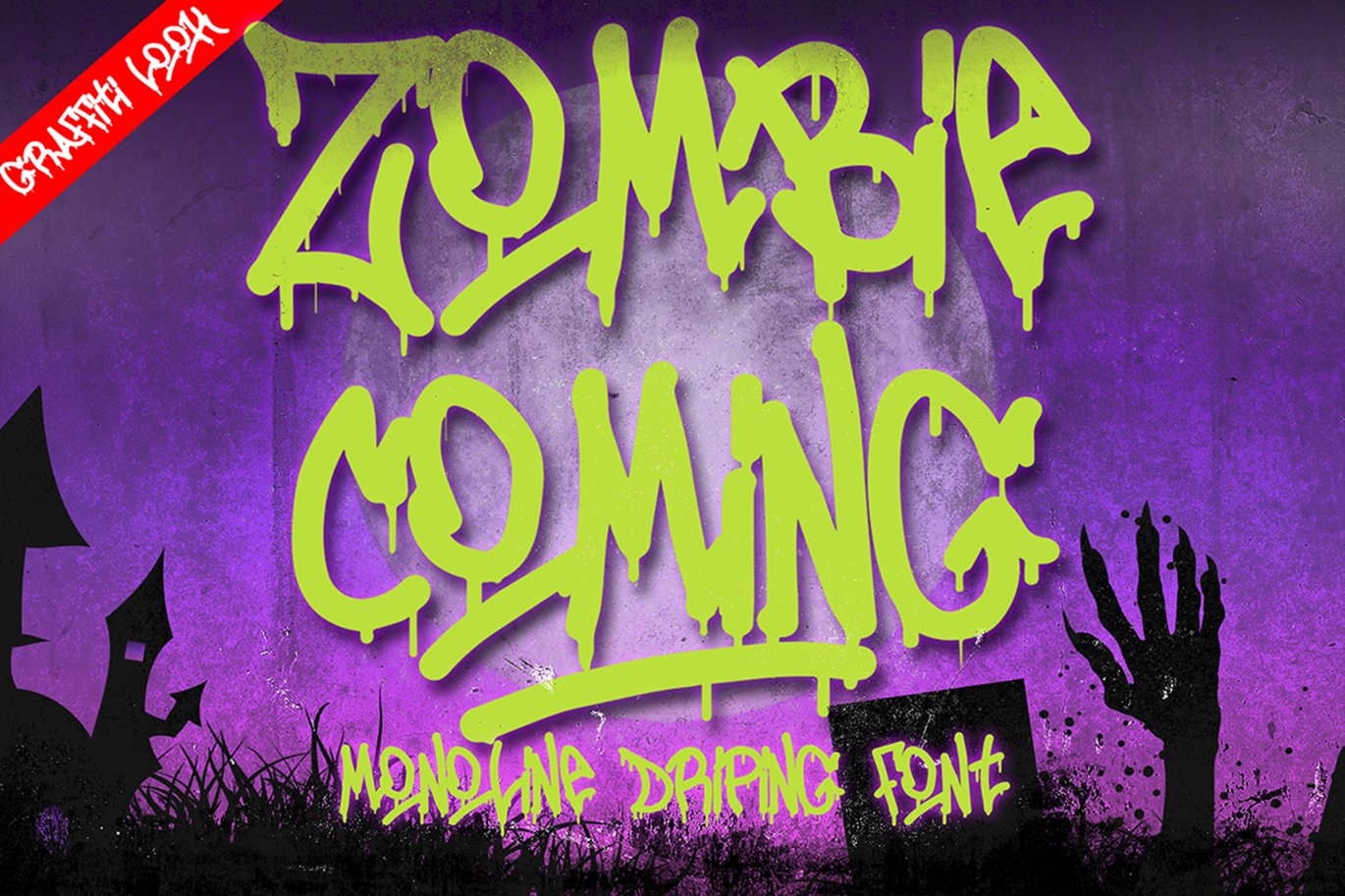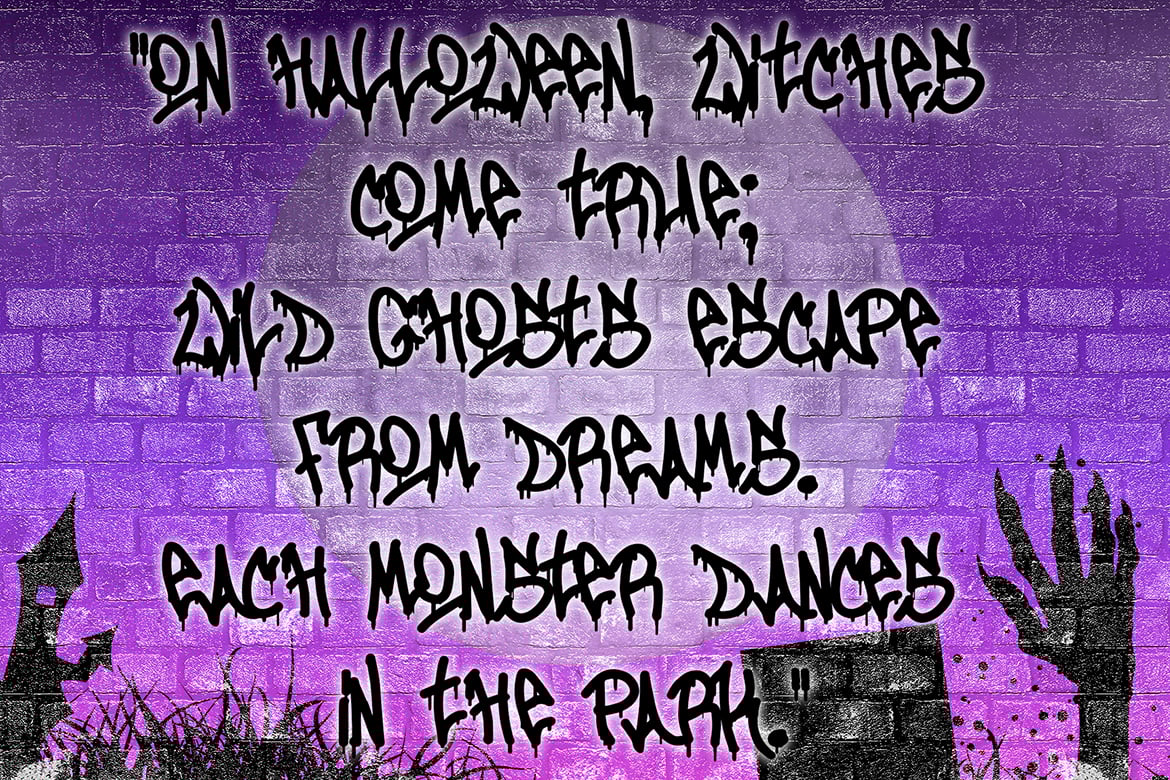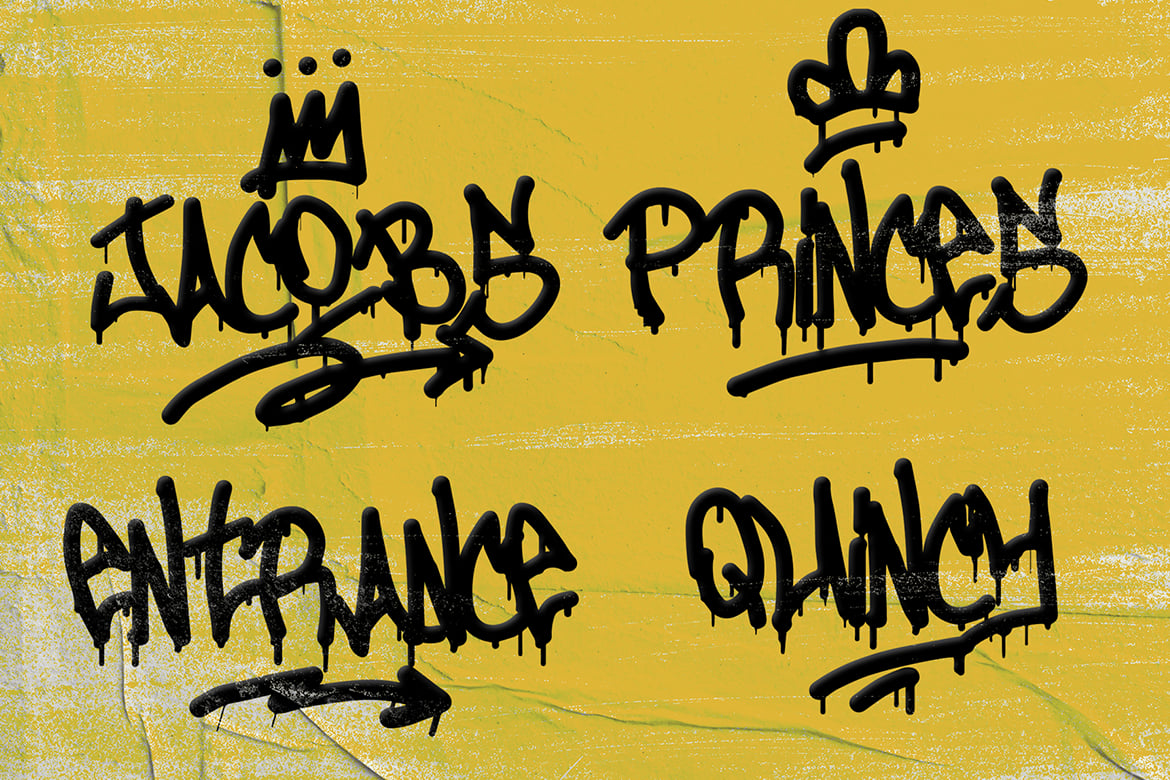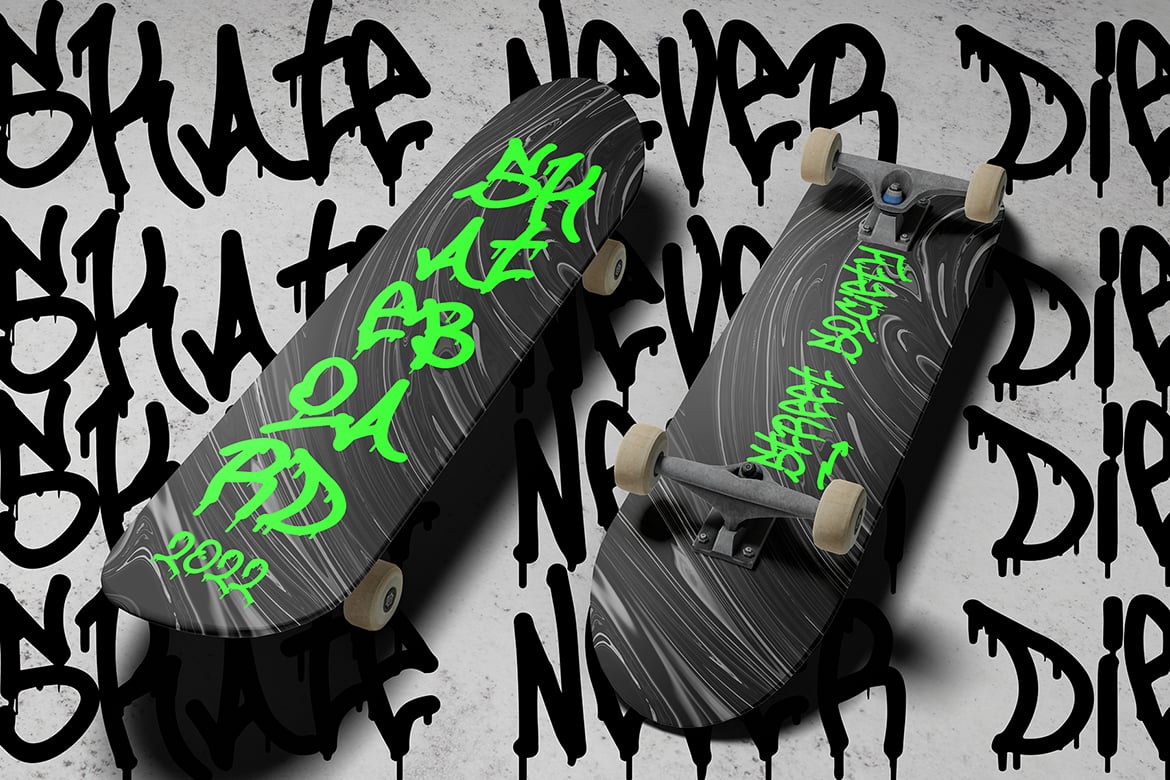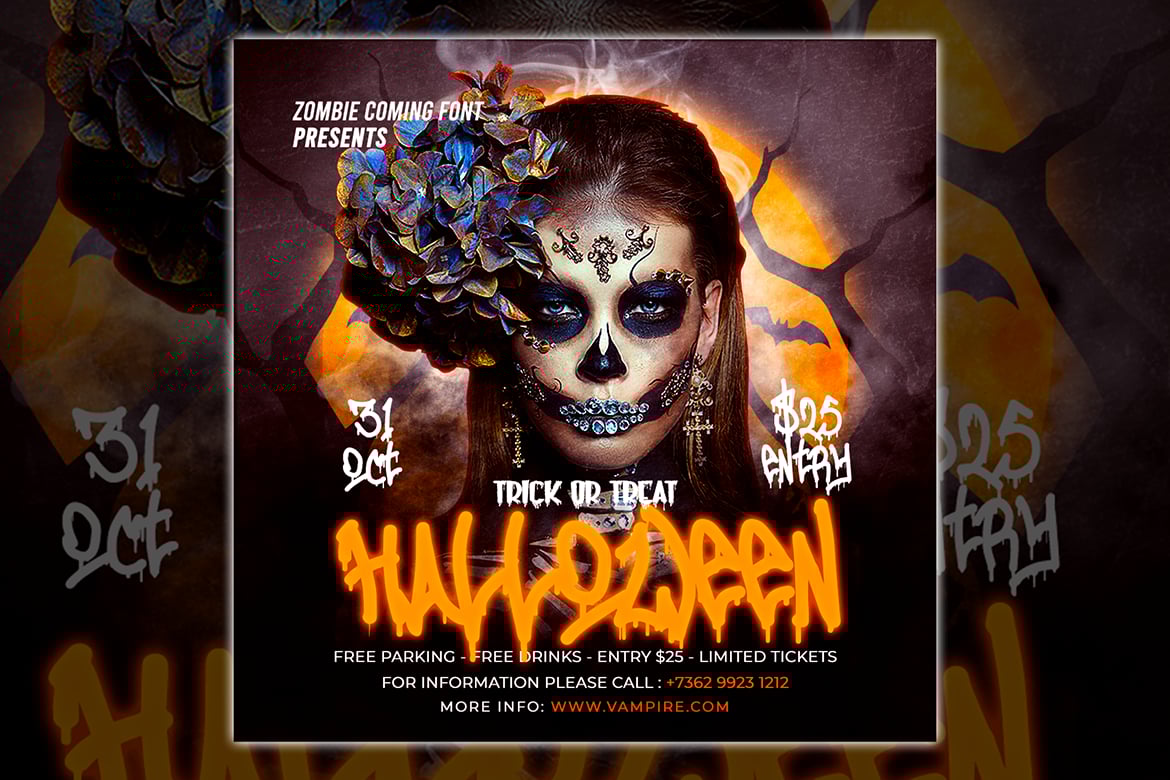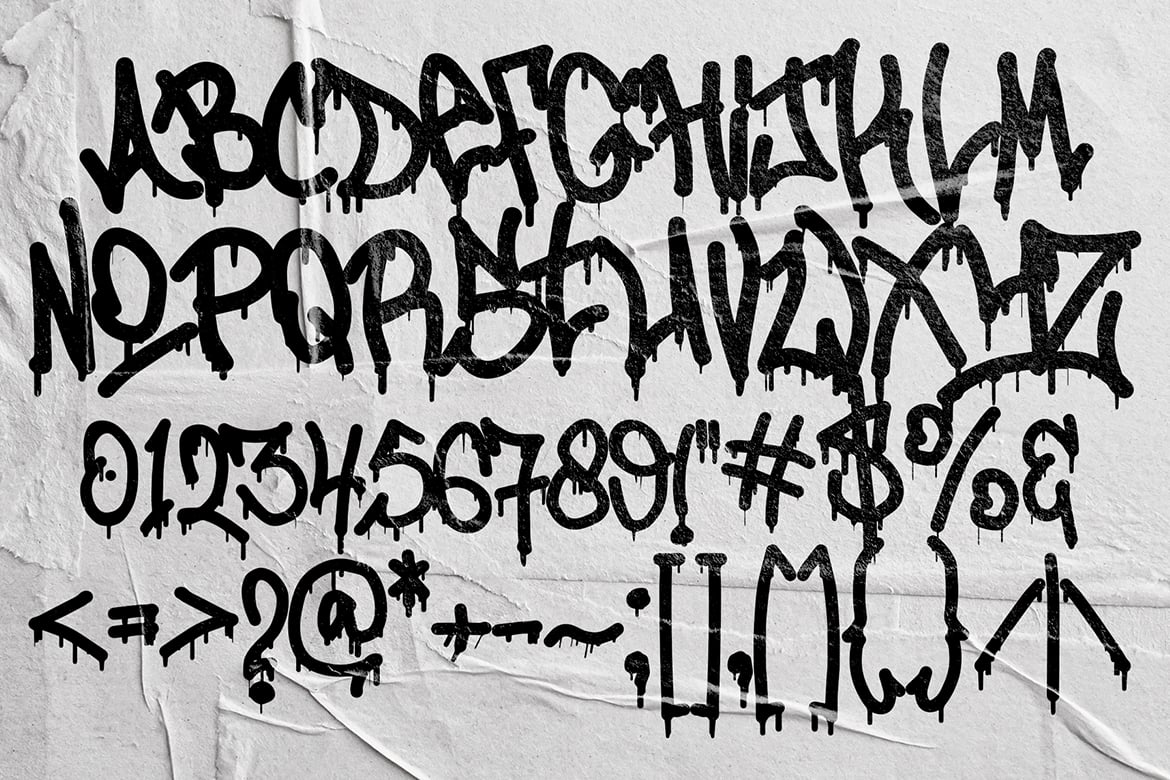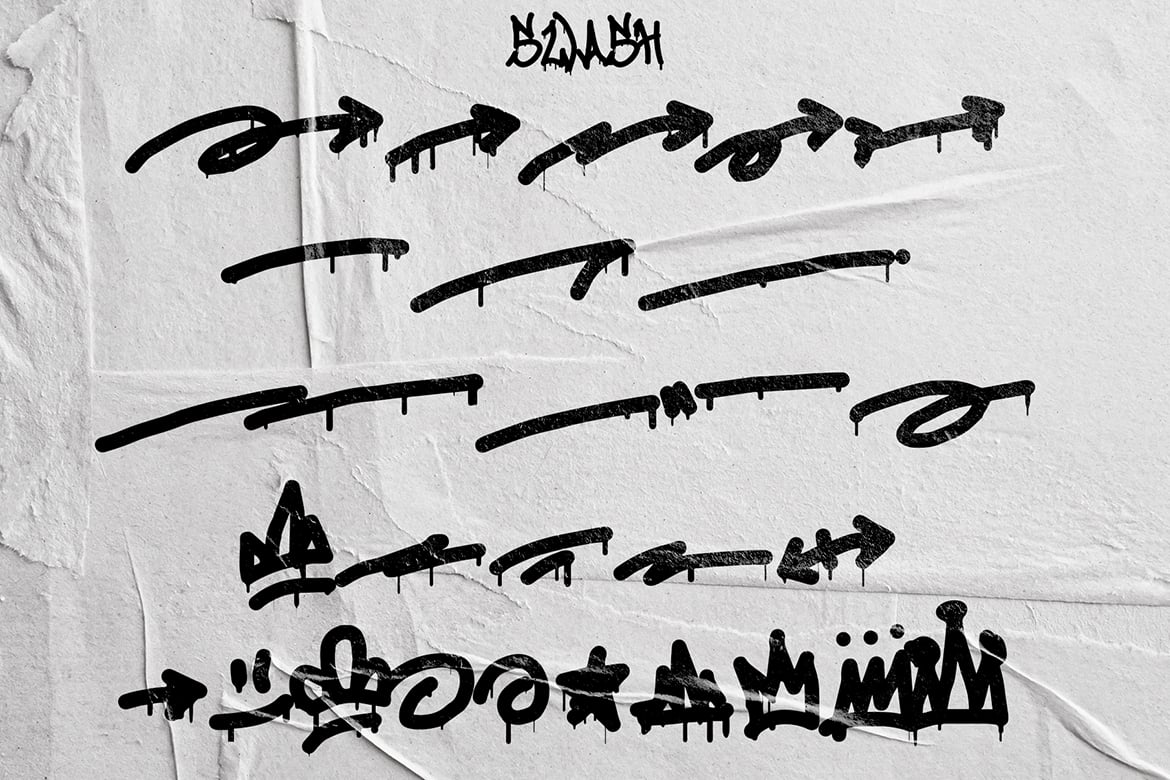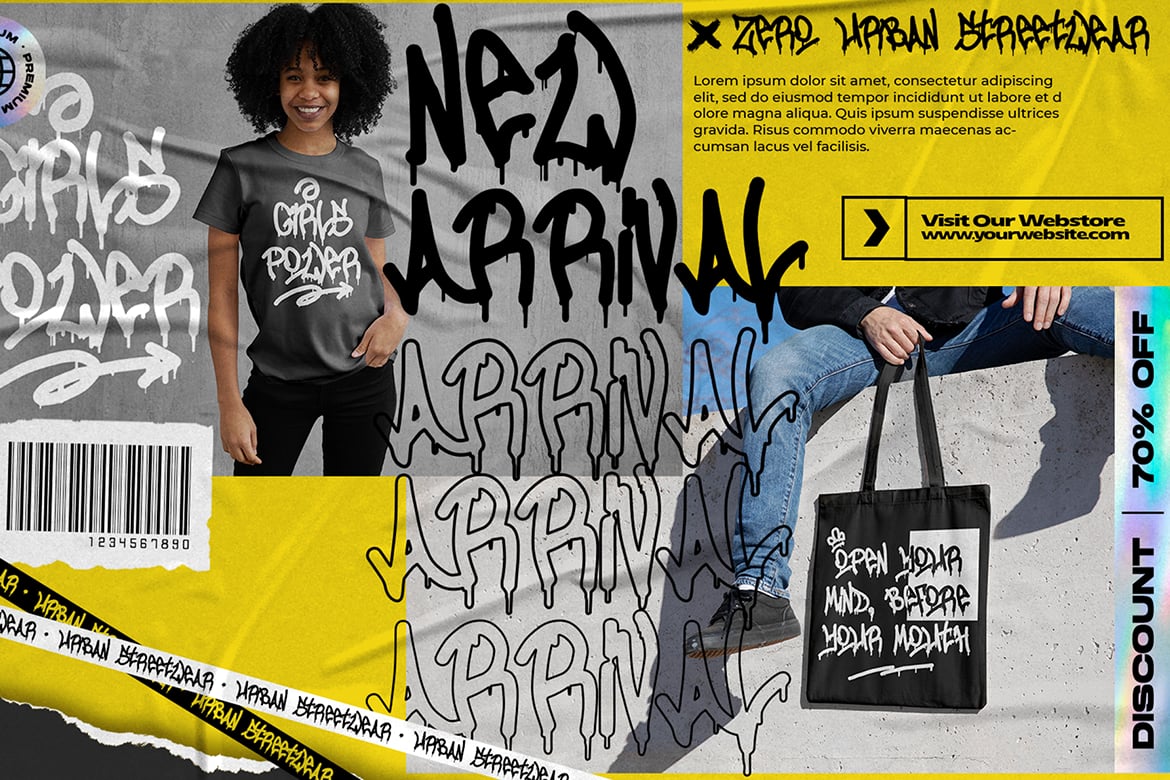
Zombie Coming – Horror Font
Zombie Coming is a display font with a monoline Dripping graffiti style, there is some swash for your awesome design. It will elevate a wide range of design projects to the highest level, be it branding, headings, logos, labels, and much more!
- Number and Punctuation
- Stylistic Alternate (Swash)